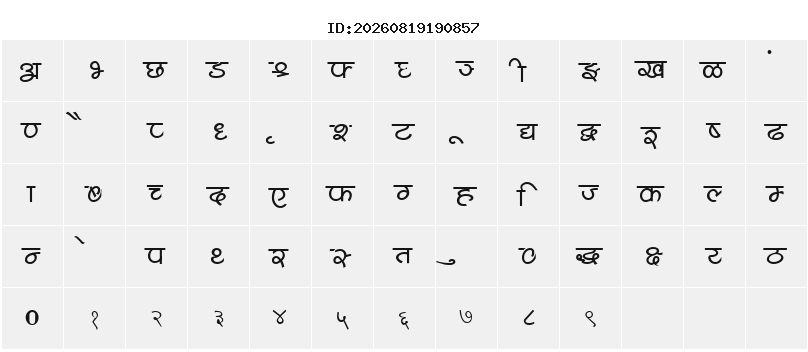
Shivaji05 Preview
• Font Name: Shivaji05
• Full Font Name: Shivaji05
• Version: Shusha - V 1.5 based Shivaji05
• Character Count: 181
About Shivaji05.ttf
Shivaji05.ttf is a modern, elegant sans-serif font designed for ultimate readability and visual harmony. Perfect for branding, headlines, web design, and print materials.